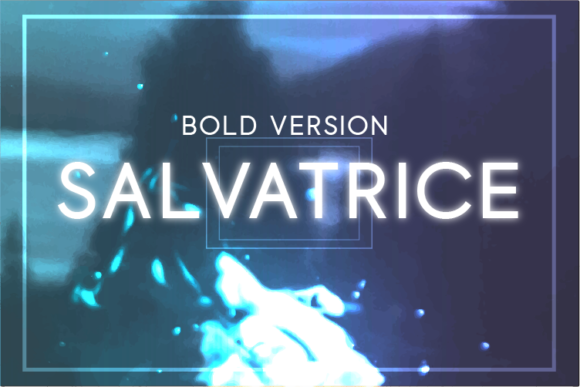
Unleash the epitome of elegance and sophistication with Salvatrice Bold, a captivating sans serif font that will ignite your creativity. Its timeless charm and versatility make it an essential tool for any designer seeking to elevate their work.
Embrace the allure of Salvatrice Bold, crafted by the renowned Huntype. This font embodies grace and sophistication, exuding an aura of effortless style that will captivate your audience. Its bold lines and sweeping curves command attention, making your designs stand out from the crowd.
Whether you're crafting a captivating logo, designing a sleek website, or adorning a magazine cover, Salvatrice Bold is your ticket to unforgettable visual experiences. Its timeless appeal transcends fleeting trends, ensuring that your creations remain as alluring as ever.
Indulge in the limitless possibilities offered by Salvatrice Bold. Its versatility knows no bounds, empowering you to express your creativity in myriad ways. Let its bold strokes inspire your imagination and transform your designs into captivating masterpieces.